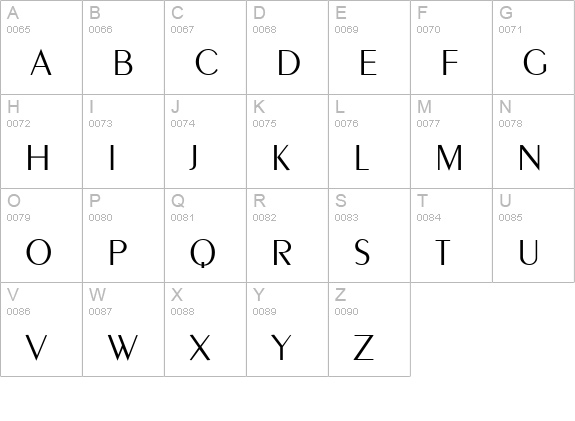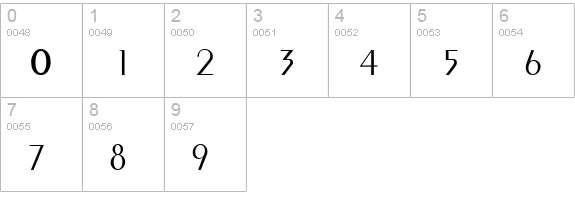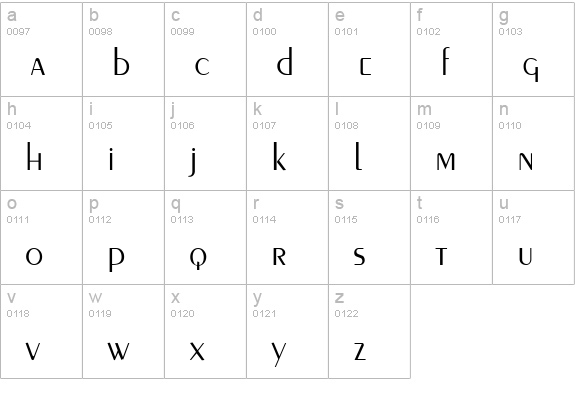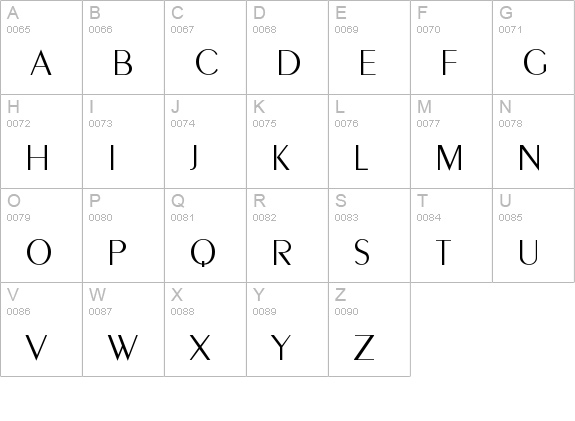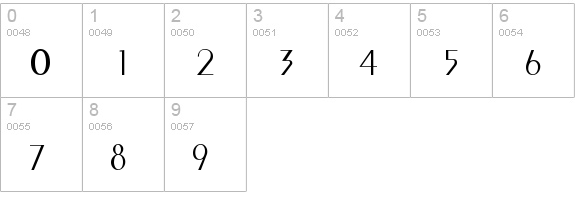
Penyae Light is a refined, elegant variant in the Penyae typeface family \xE2\x80\x94 well suited to elegant body text, refined sub-headings, and luxury branding.
Penyae Light is a visually stunning font that effortlessly combines elegance with modernity. Its clean and crisp lines make it perfect for a wide range of design projects, from branding to advertising to editorial layouts. With its delicate strokes and graceful curves, Penyae Light adds a touch of sophistication to any composition. This font's versatility is further enhanced by its light weight, which gives it a subtle and refined appearance. It exudes an air of sophistication and refinement, making it ideal for designs that require a touch of elegance. One of the best things about Penyae Light is that it is available for free! Yes, you heard it right. This extraordinary font can be freely downloaded at FontsMarket.com, one of the most reputable sources for high-quality fonts. This means that you can use Penyae Light in your personal or commercial projects without having to worry about any costs. Whether you are a professional designer or a novice enthusiast, Penyae Light is a font that will undoubtedly captivate your audience. Its timeless appeal and versatility make it a valuable addition to any font library. So go ahead and download Penyae Light from FontsMarket.com and let your creativity soar.